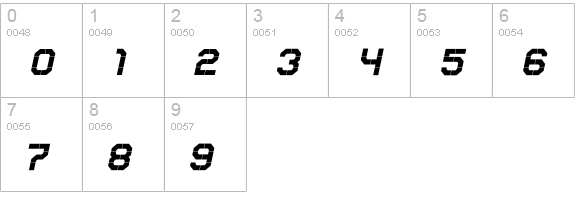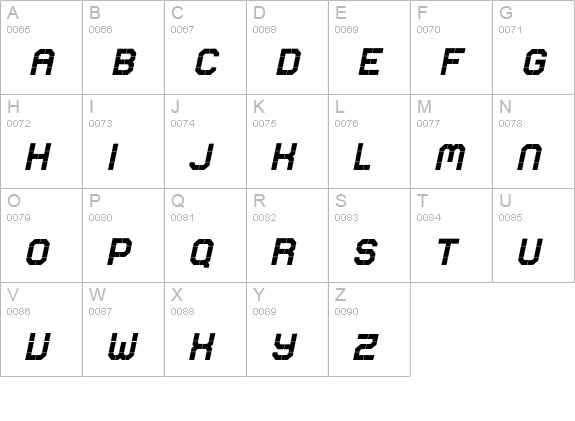
Comsat-Navy-Storm Font Details
Comsat-Navy-Storm font is a modern and stylish typeface that exudes a sense of sophistication and elegance. Its sleek lines and unique design make it perfect for a wide range of design projects, from branding to editorial design. The bold and striking look of this font will make your text stand out and leave a lasting impression on your audience. What's even better is that Comsat-Navy-Storm font is available for free download at FontsMarket.com. This means you can easily access this high-quality font without any cost, making it a fantastic option for designers looking to add a touch of class to their projects without breaking the bank. Don't miss out on the opportunity to enhance your designs with this stunning font that is both stylish and free to use.